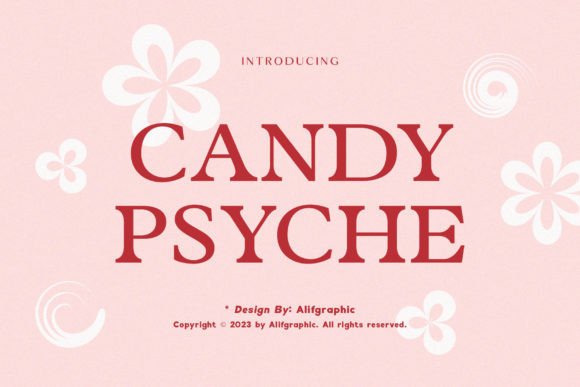
Journey into the realm of sophistication and grace with Candy Psyche Font, a serif masterpiece crafted by alifgraphic. Experience the allure of a font that harmoniously blends timeless elegance with a contemporary twist. Candy Psyche's modern and graceful demeanor effortlessly complements websites, logos, magazines, social media, and more.
Unleash your creativity and watch as words transform into captivating expressions, leaving a lasting impression on your audience. Candy Psyche's meticulously designed characters exude a charm that elevates your designs, adding a touch of allure and refinement.
Immerse yourself in the world of elegance, style, class, chic, and modernity with Candy Psyche Font. Its versatility knows no bounds, allowing you to effortlessly create designs that resonate with your unique vision. Whether you're a seasoned designer or just starting out, this font is your gateway to crafting masterpieces that speak volumes.
Don't miss this opportunity to elevate your designs with Candy Psyche Font. Let your imagination soar and witness the transformation as your creations take on a life of their own, leaving a lasting impact on all who encounter them. Embrace the essence of sophistication and let Candy Psyche Font guide you towards design excellence.
Partner with Candy Psyche Font and unlock a world of creative possibilities. Experience the joy of effortless design as you seamlessly bring your ideas to life, leaving an indelible mark on the world of visual communication.